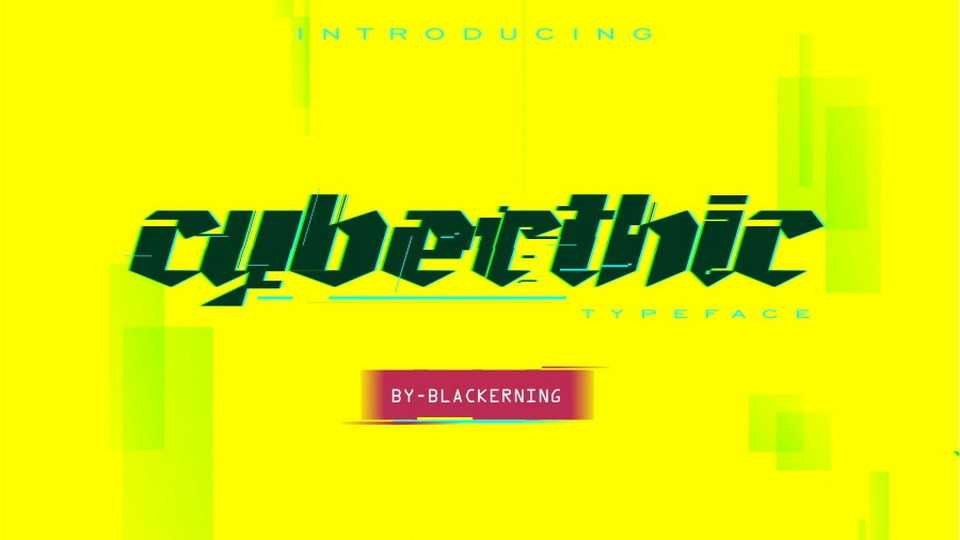
Download Cyberthic font, a modern digital gothic typeface that comes from decorative blackletter font. Cyberthic is inspired by Cyberpunk 2077 and Textura blackletter style, a mixture between rush and futuristic vibes designs.
Designer: Blackerning Studio